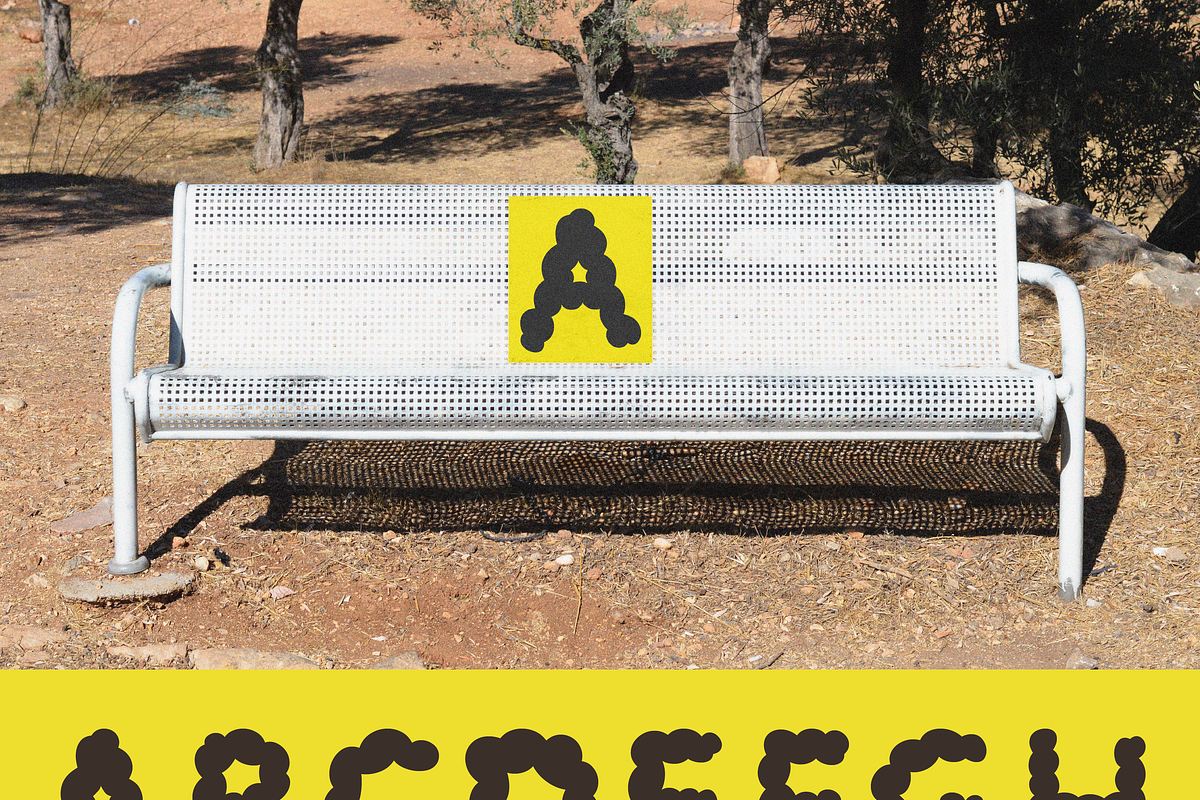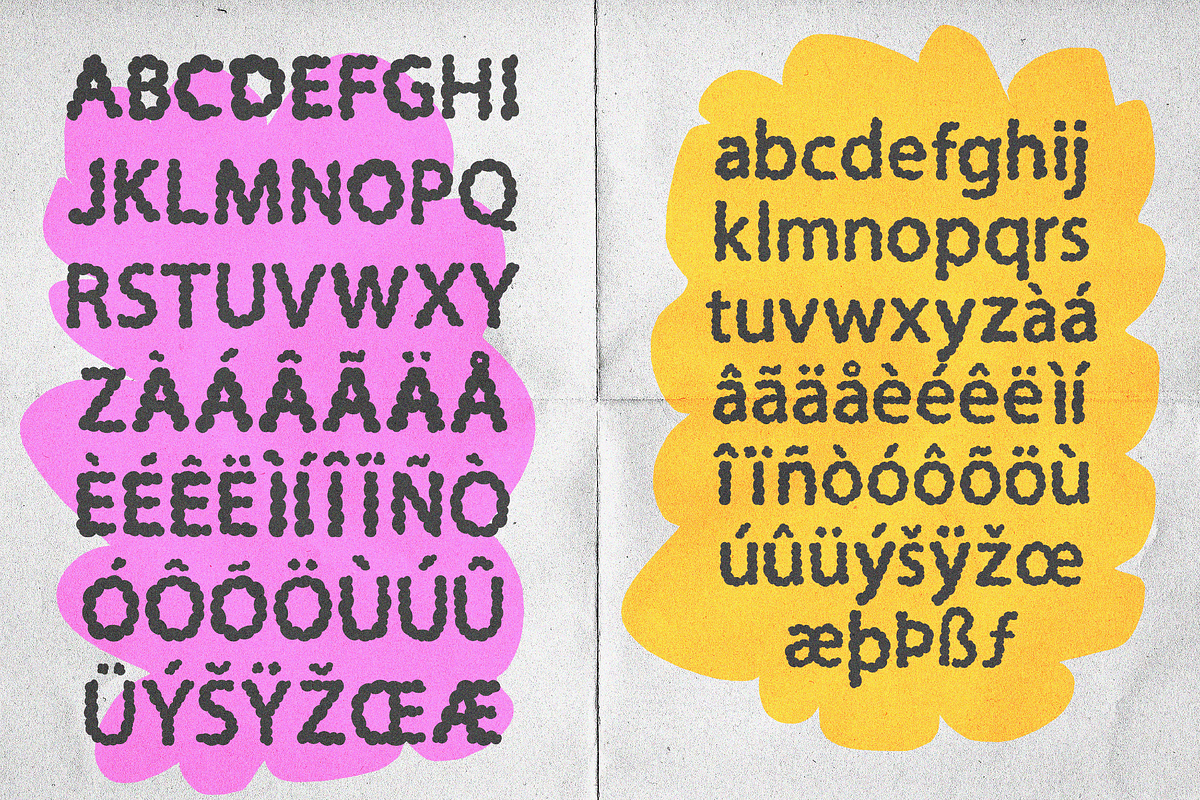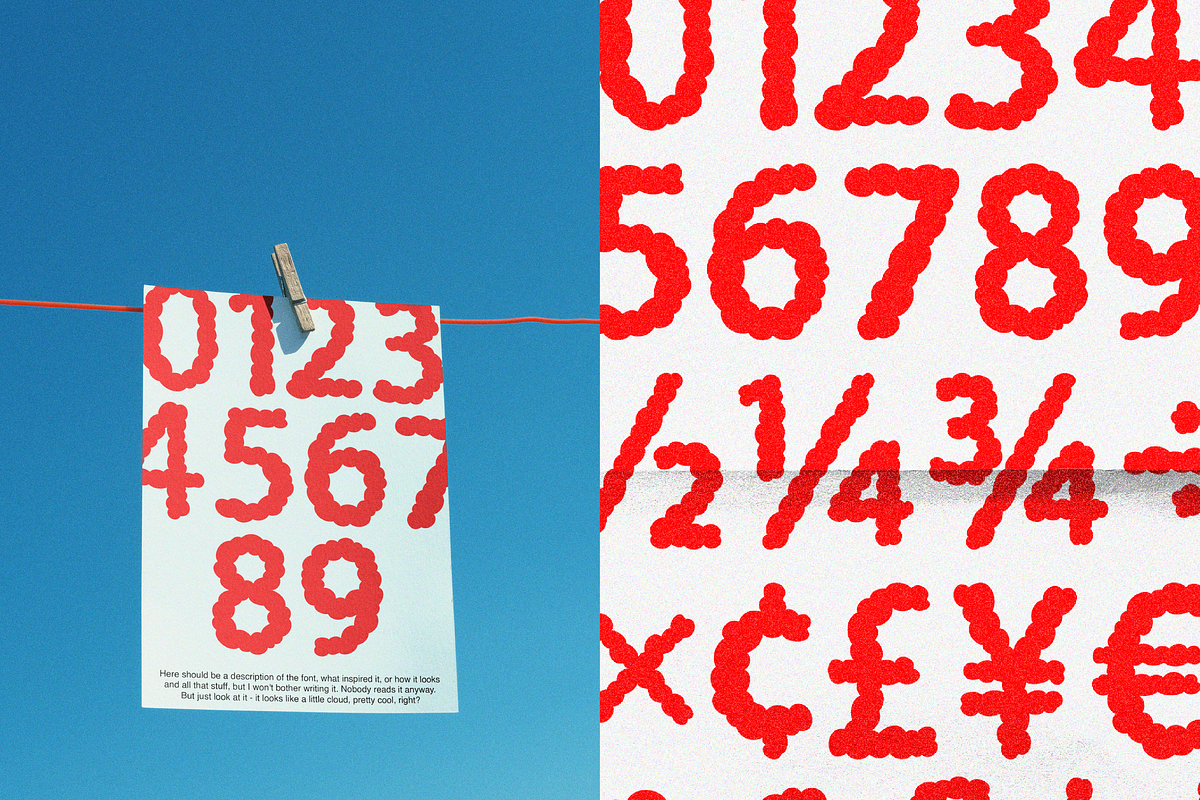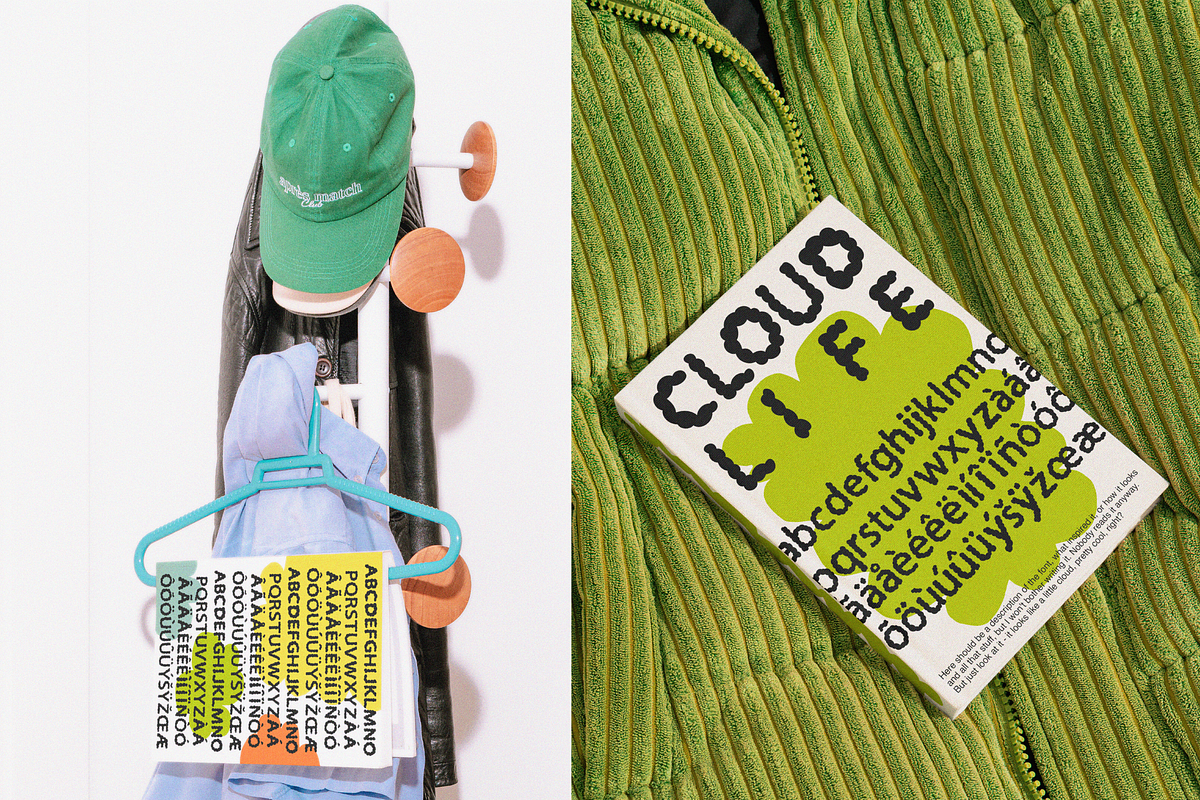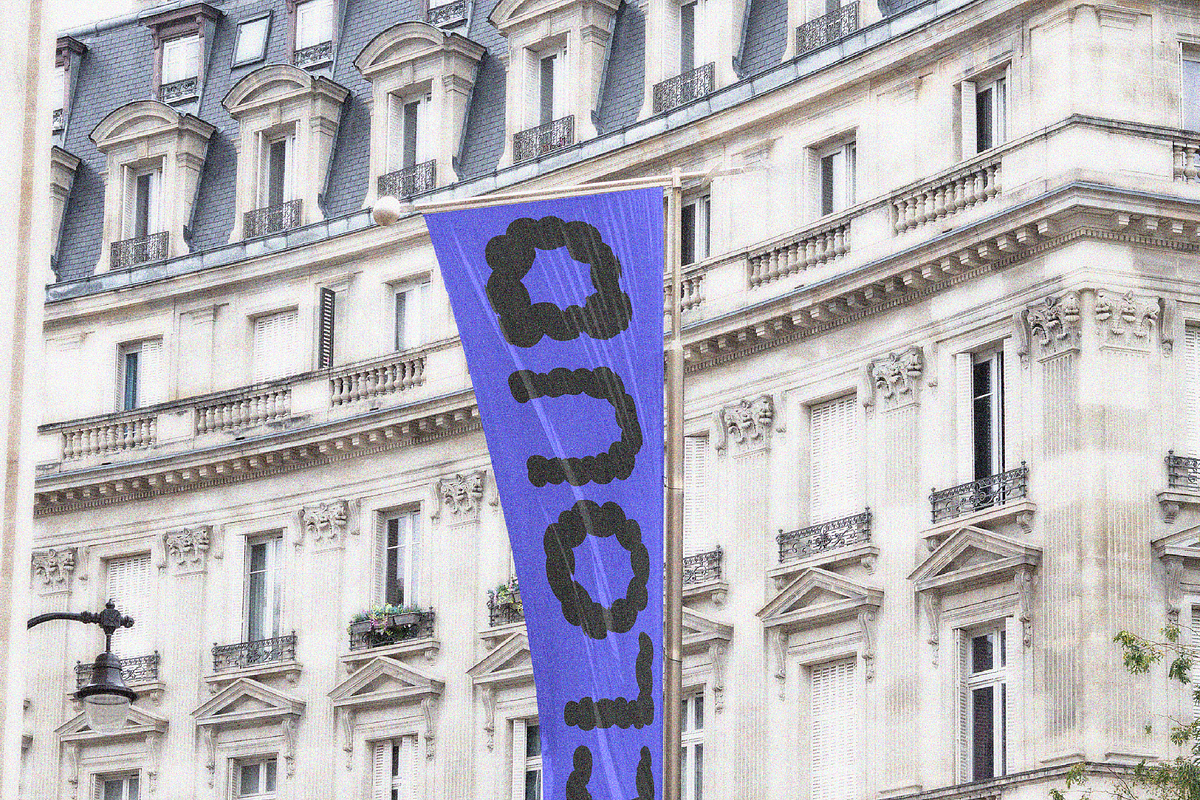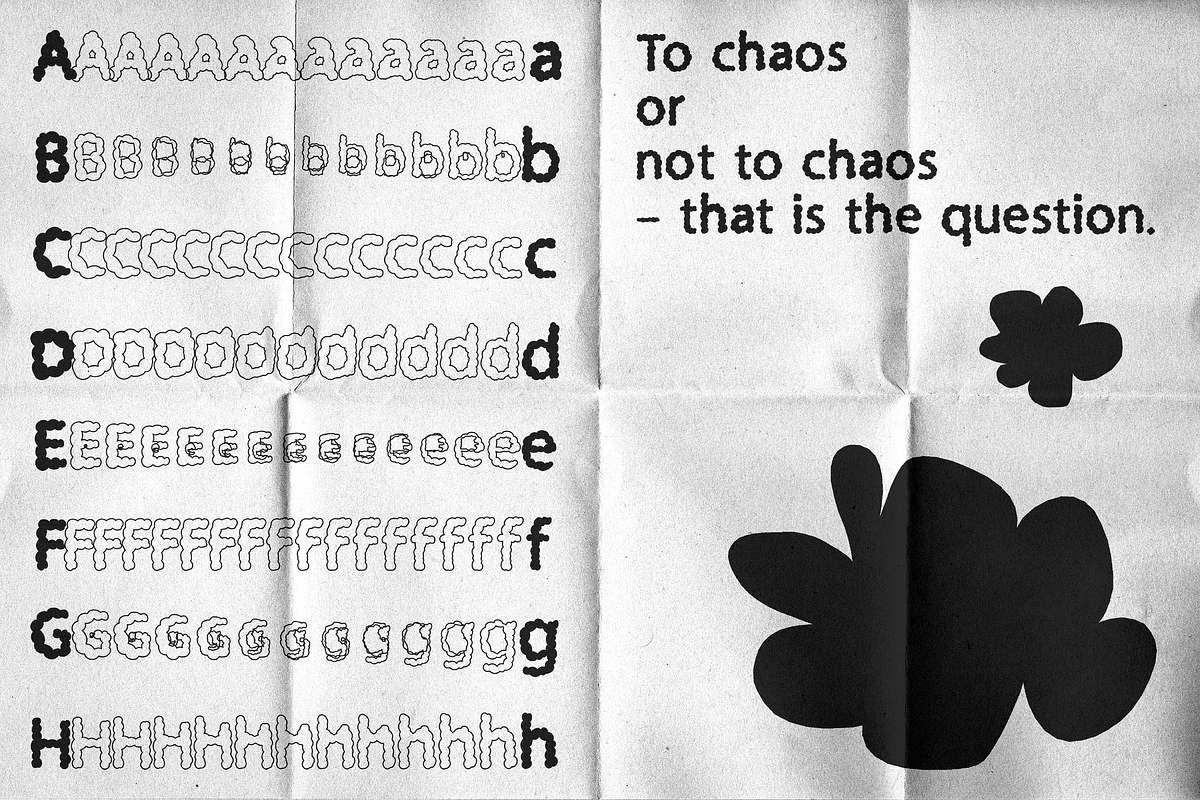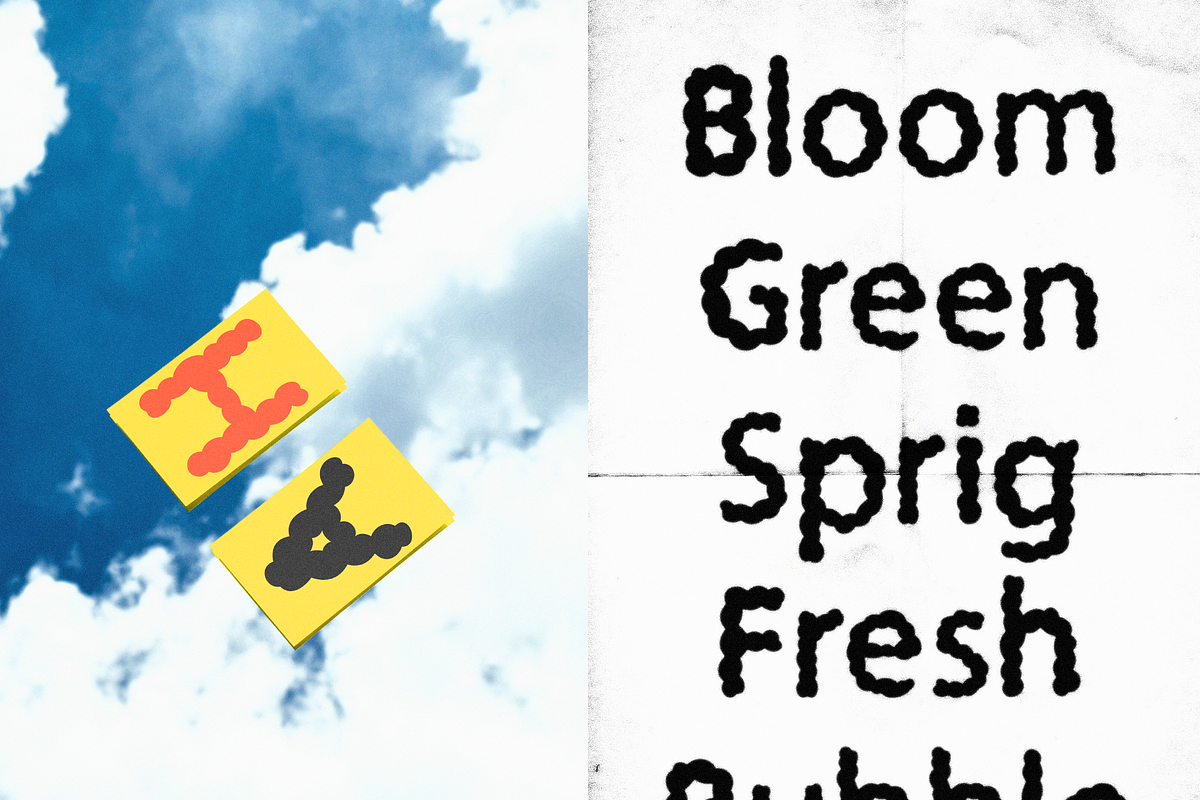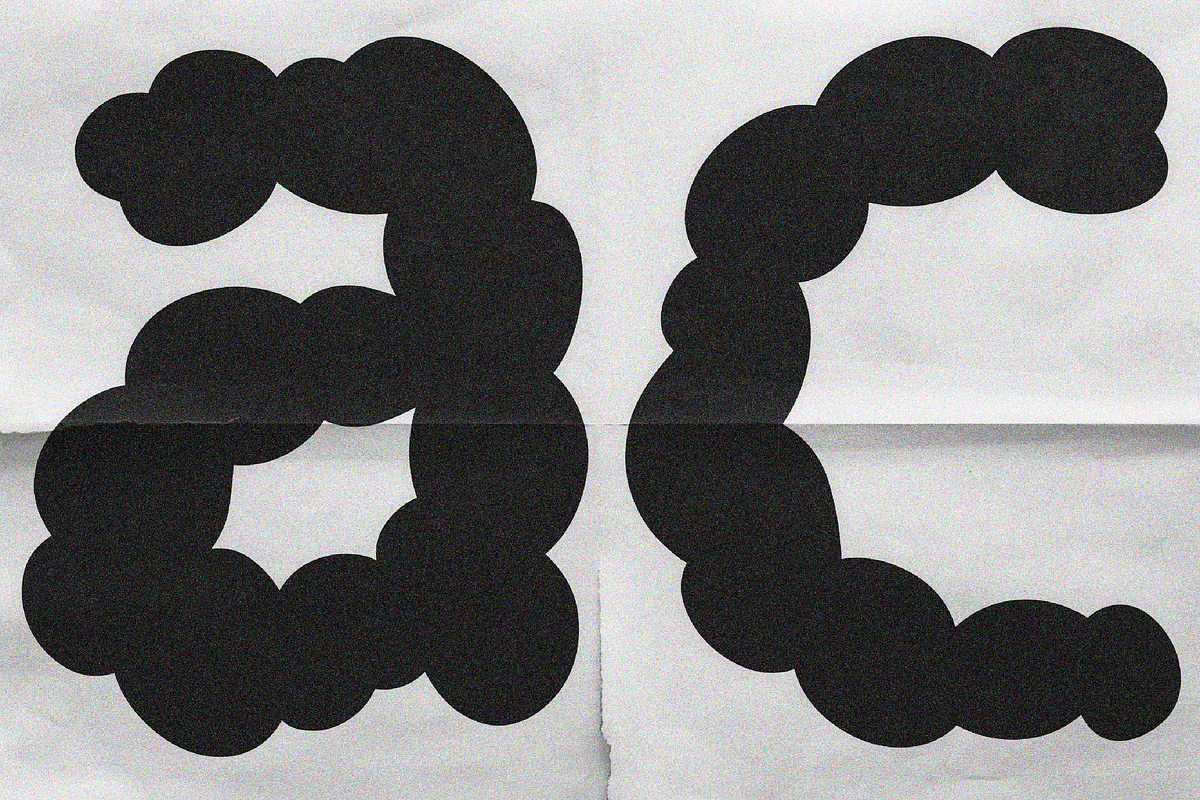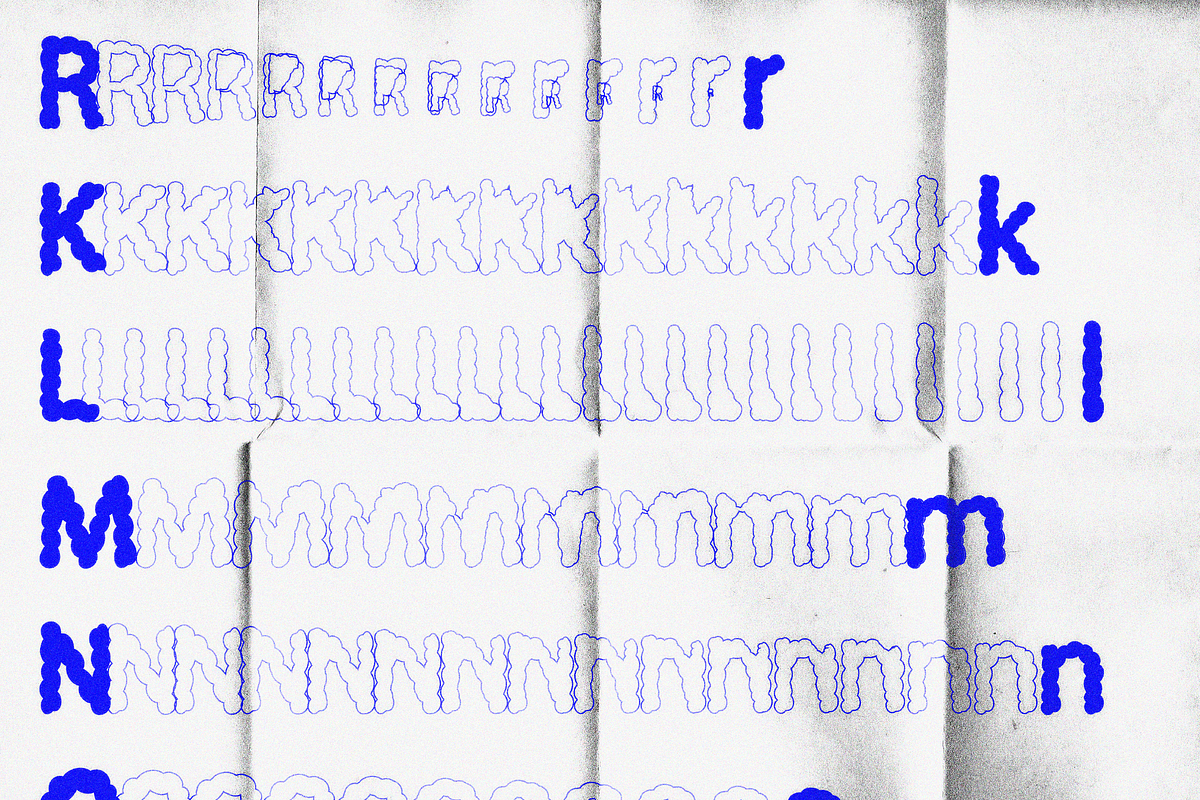
Cloud Life | Display Font
Meet Cloud Life
– the font that's as fluffy as a marshmallow and as bouncy as a rubber ball! It's like your text got caught in a pillow fight with clouds and came out looking ridiculously cute. Whether it's a playful logo, quirky headlines, or just jazzing up your grocery list, Cloud Life adds a sprinkle of absurdity to everything. Embrace the fun and let your designs soar with Cloud Life!